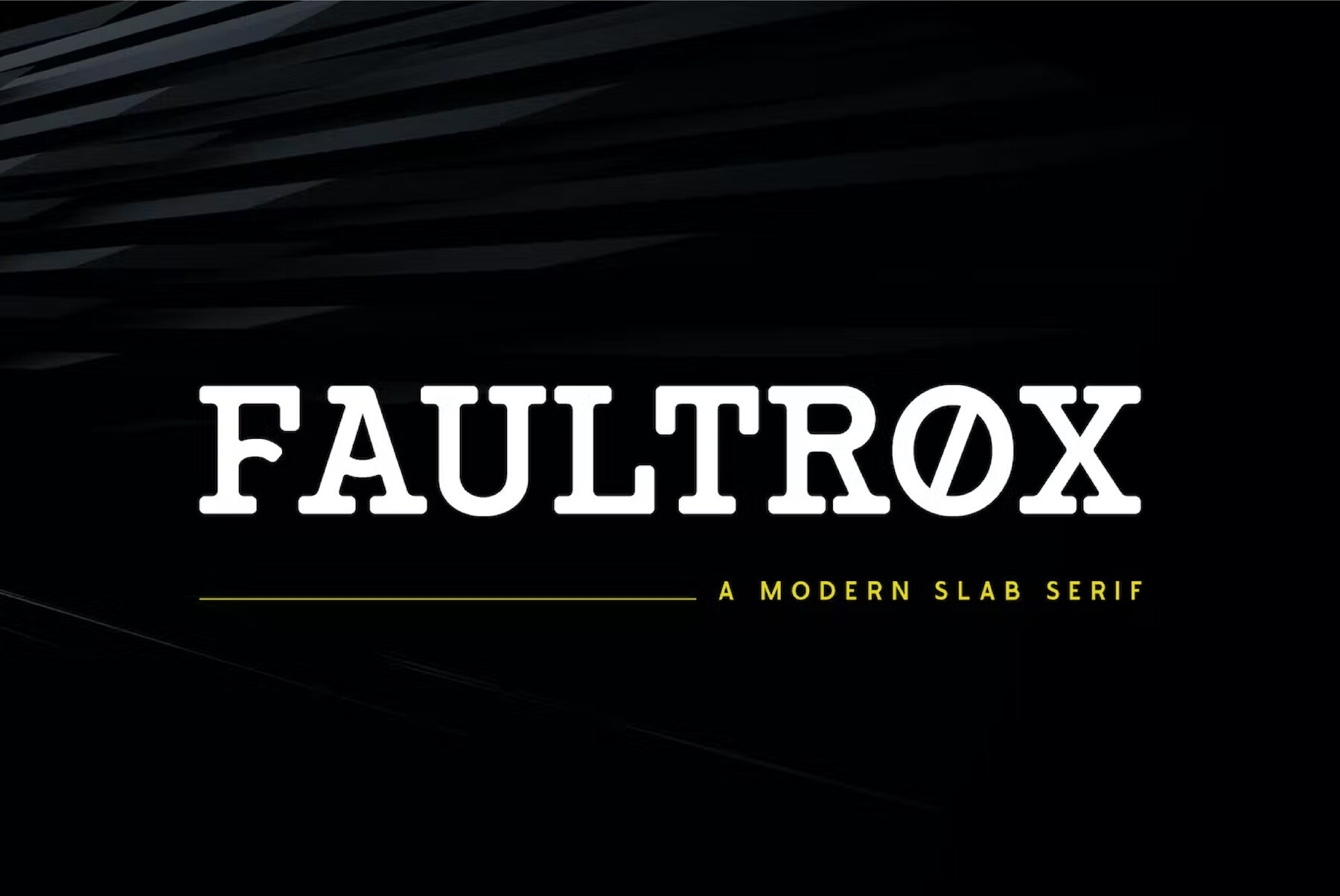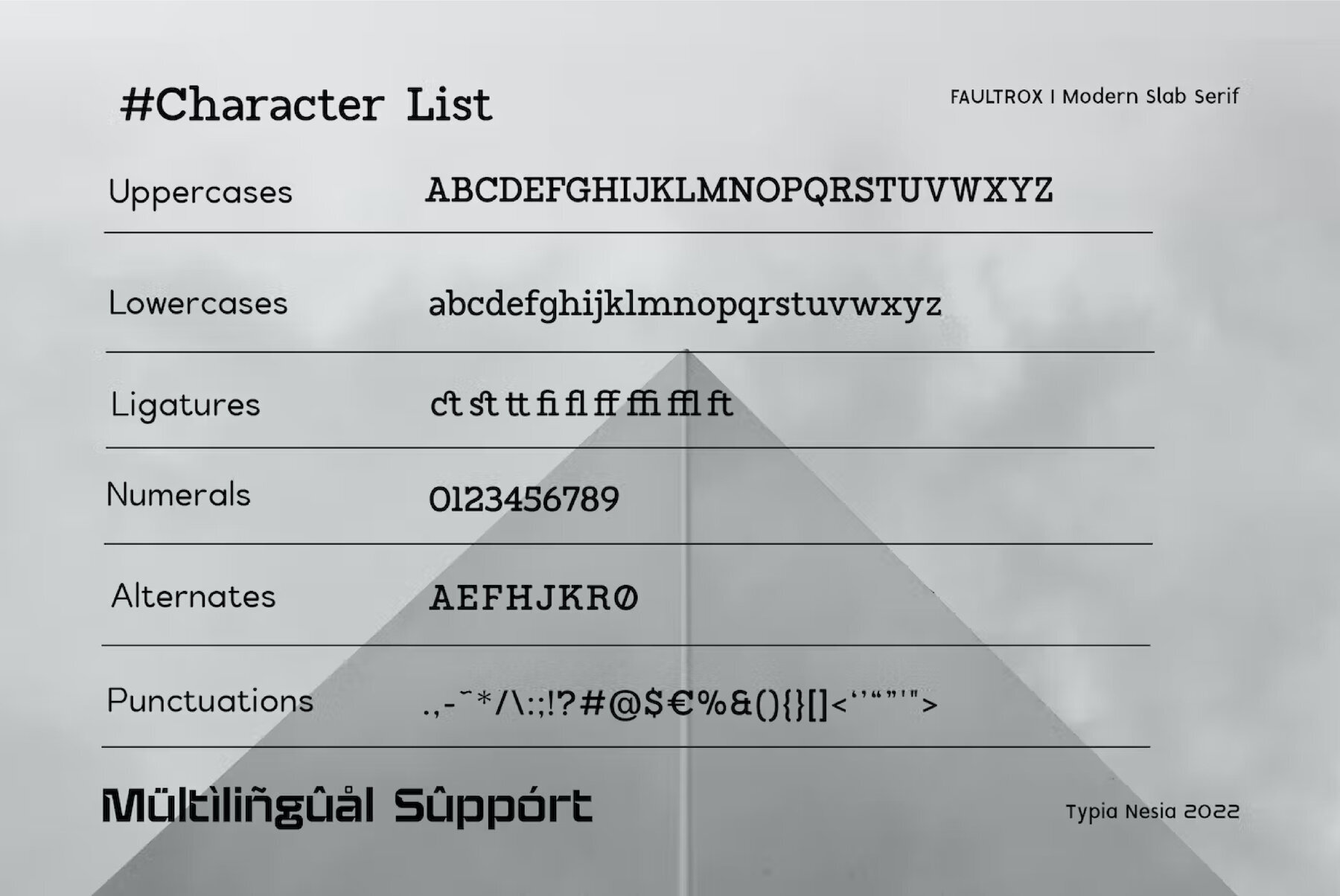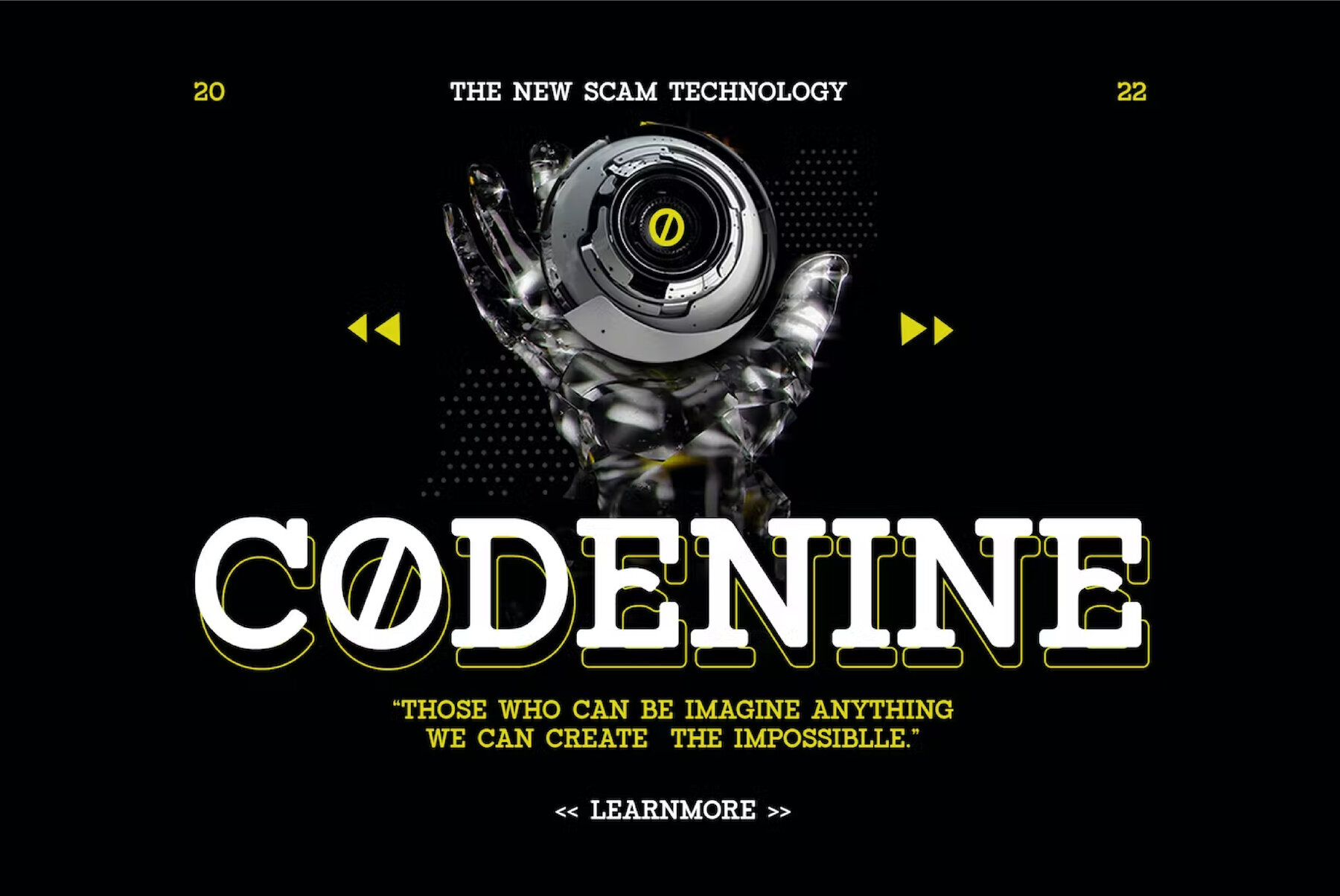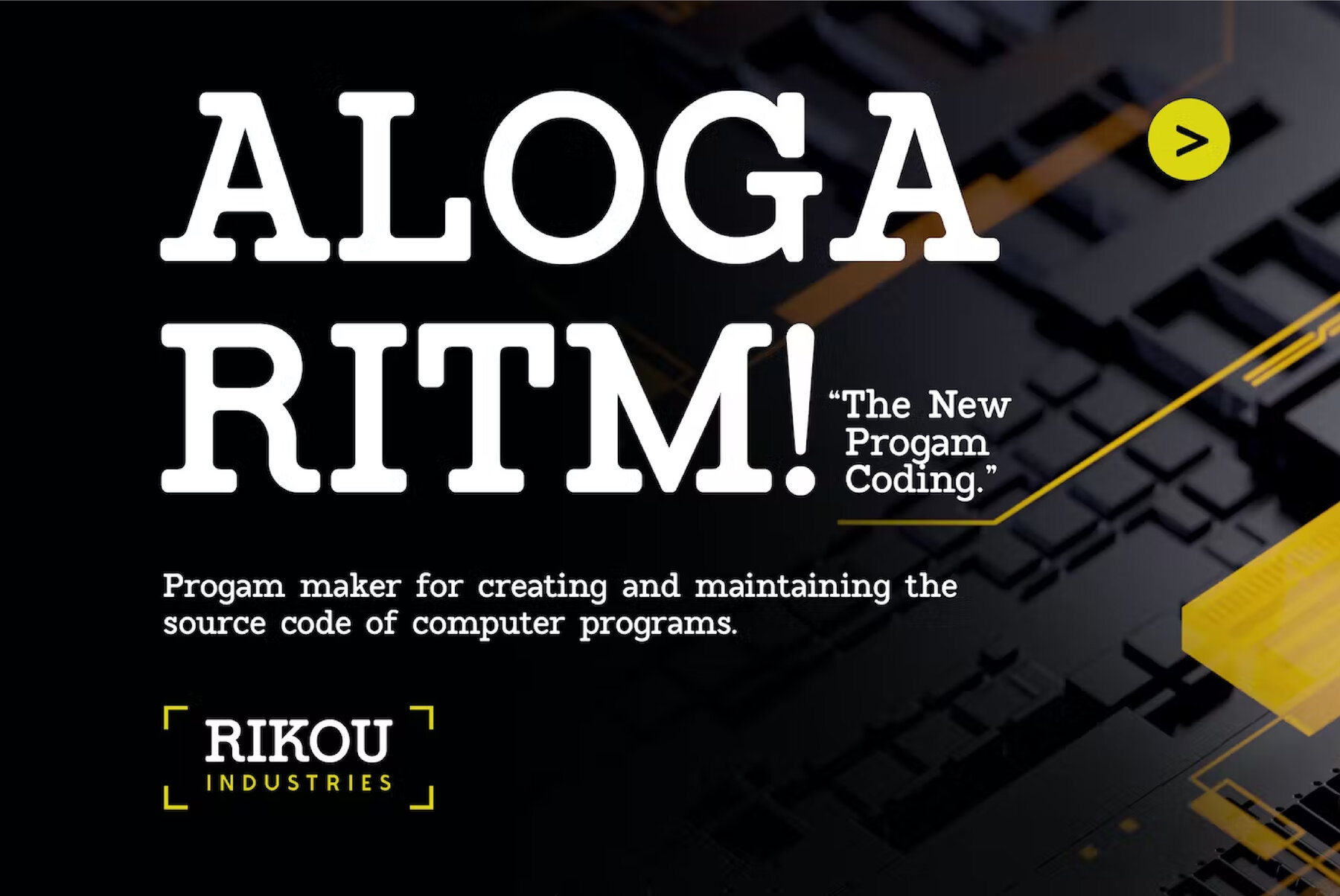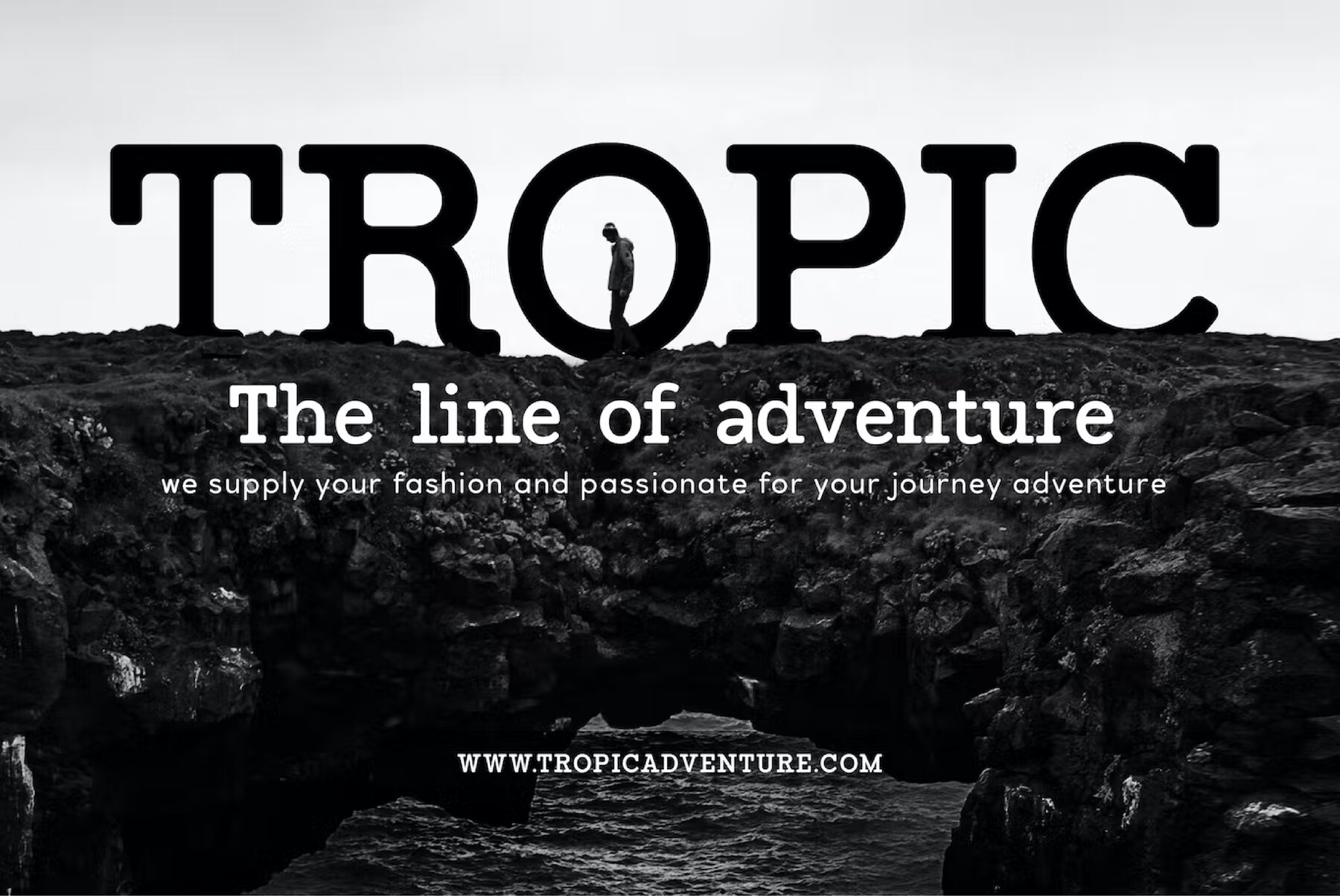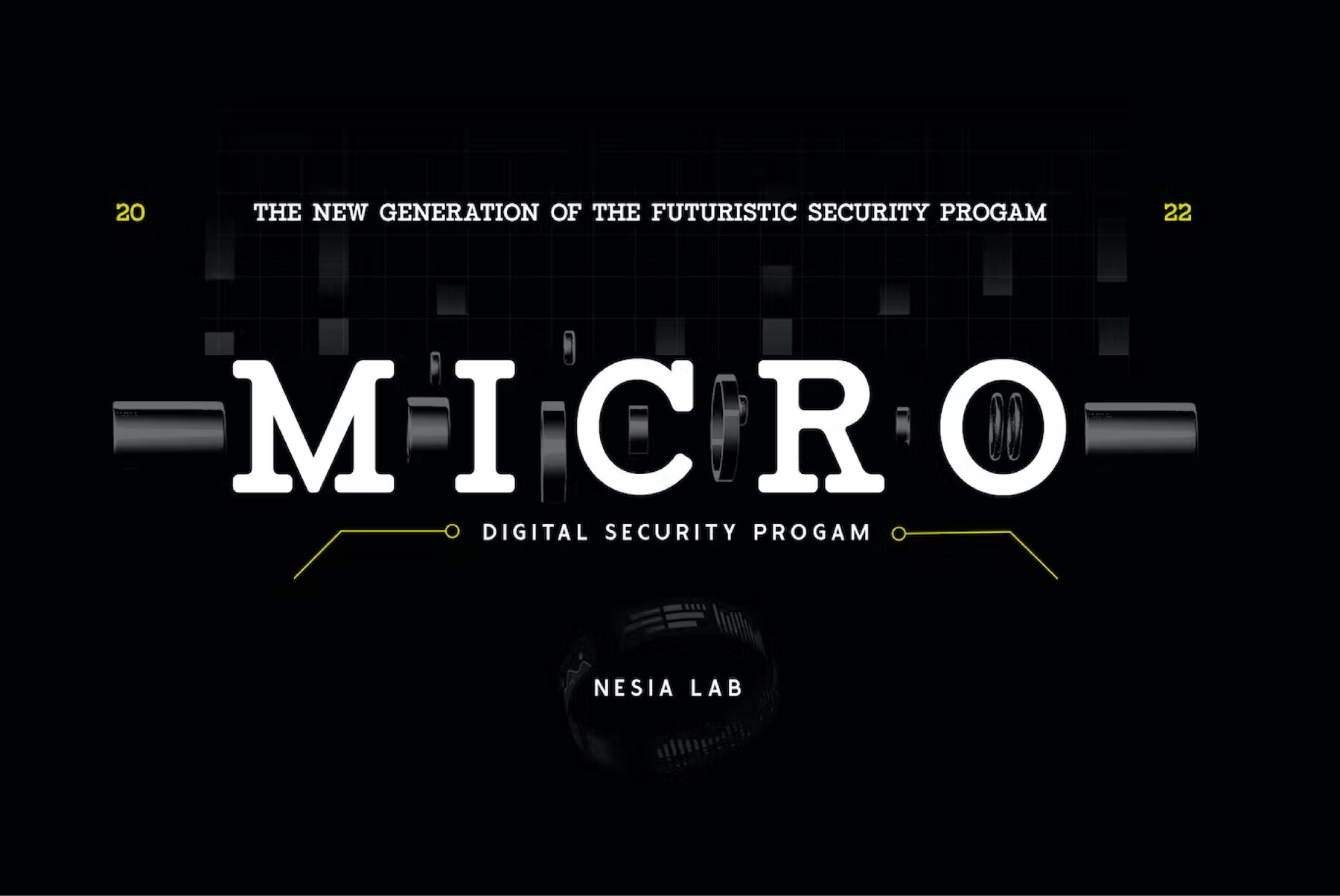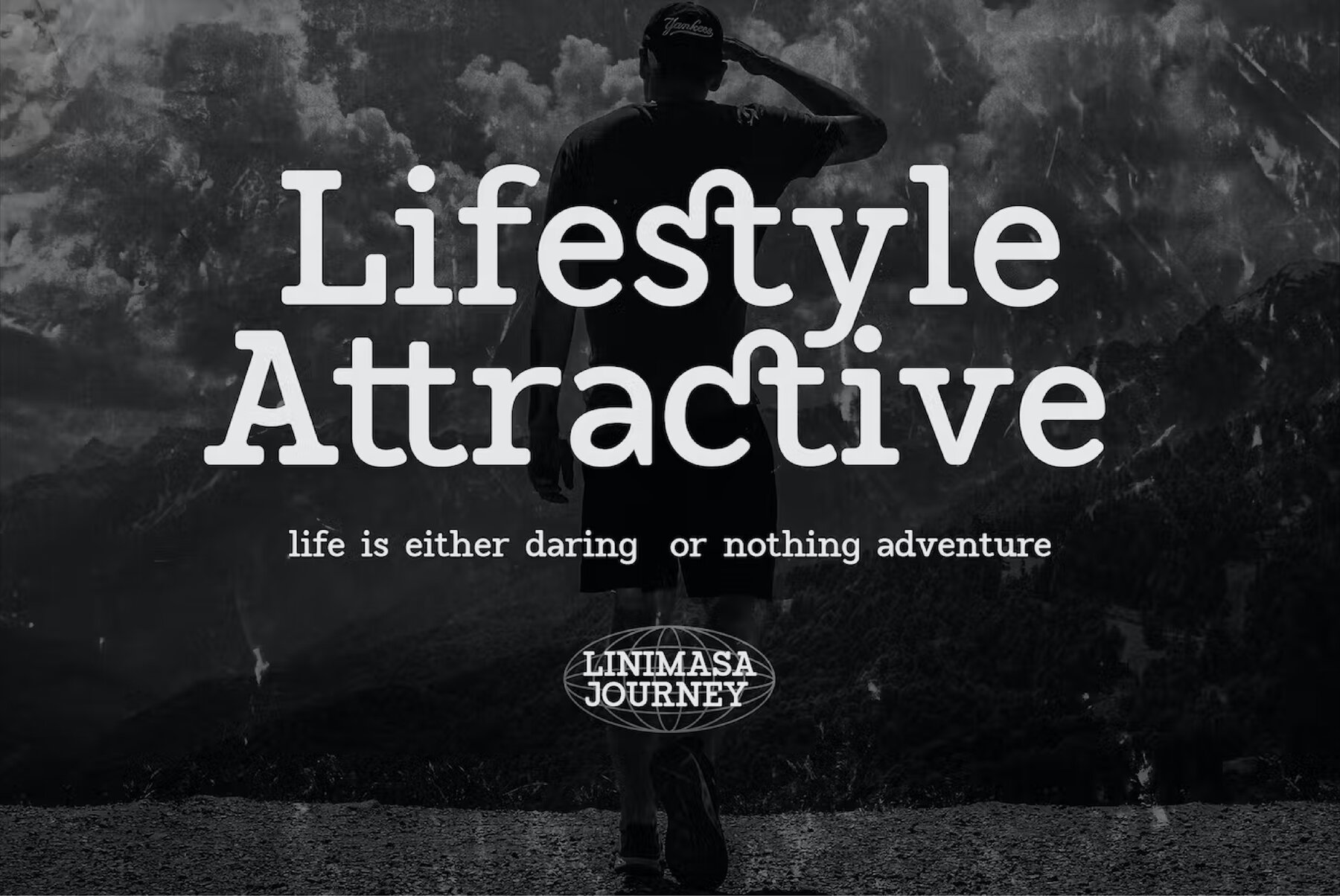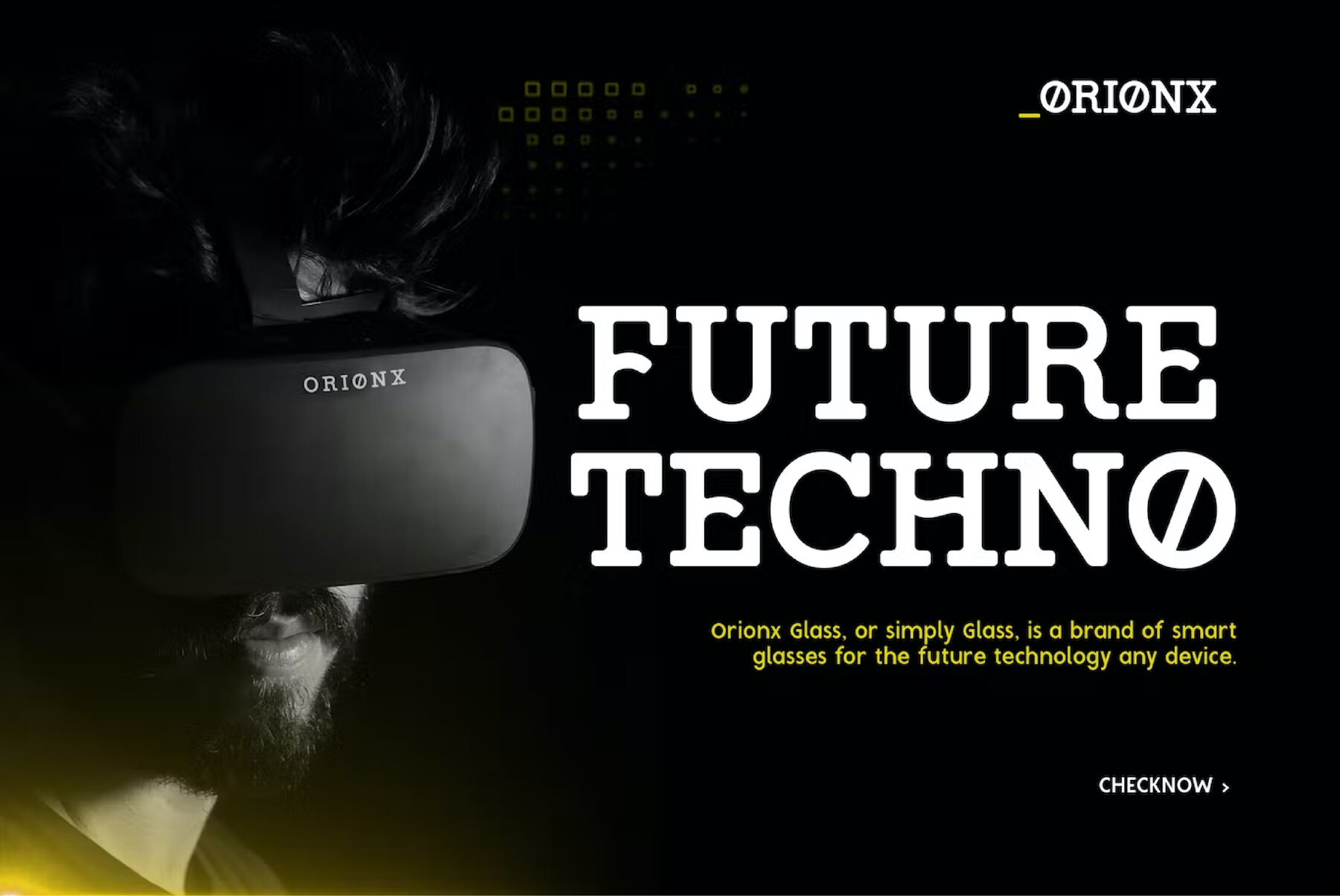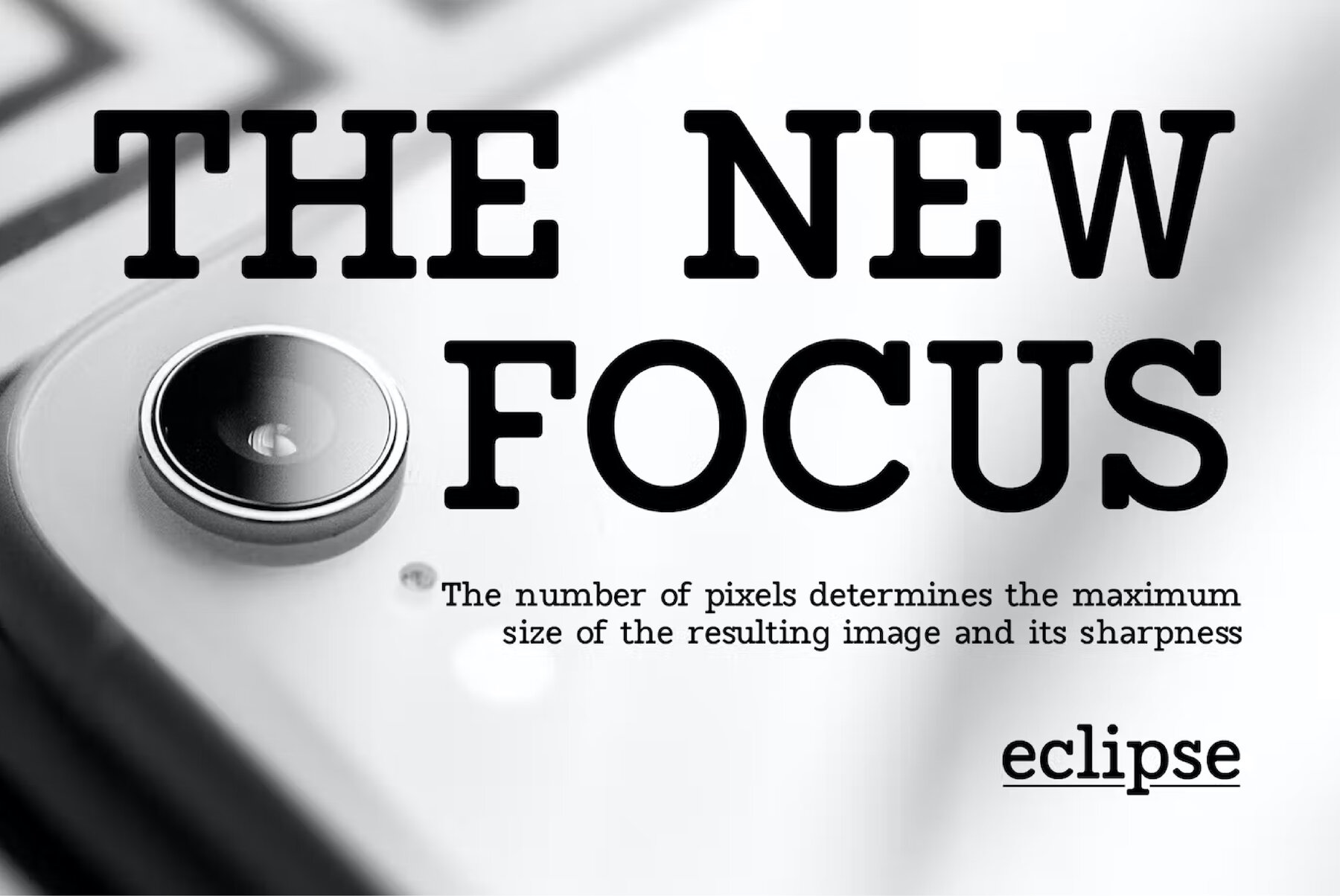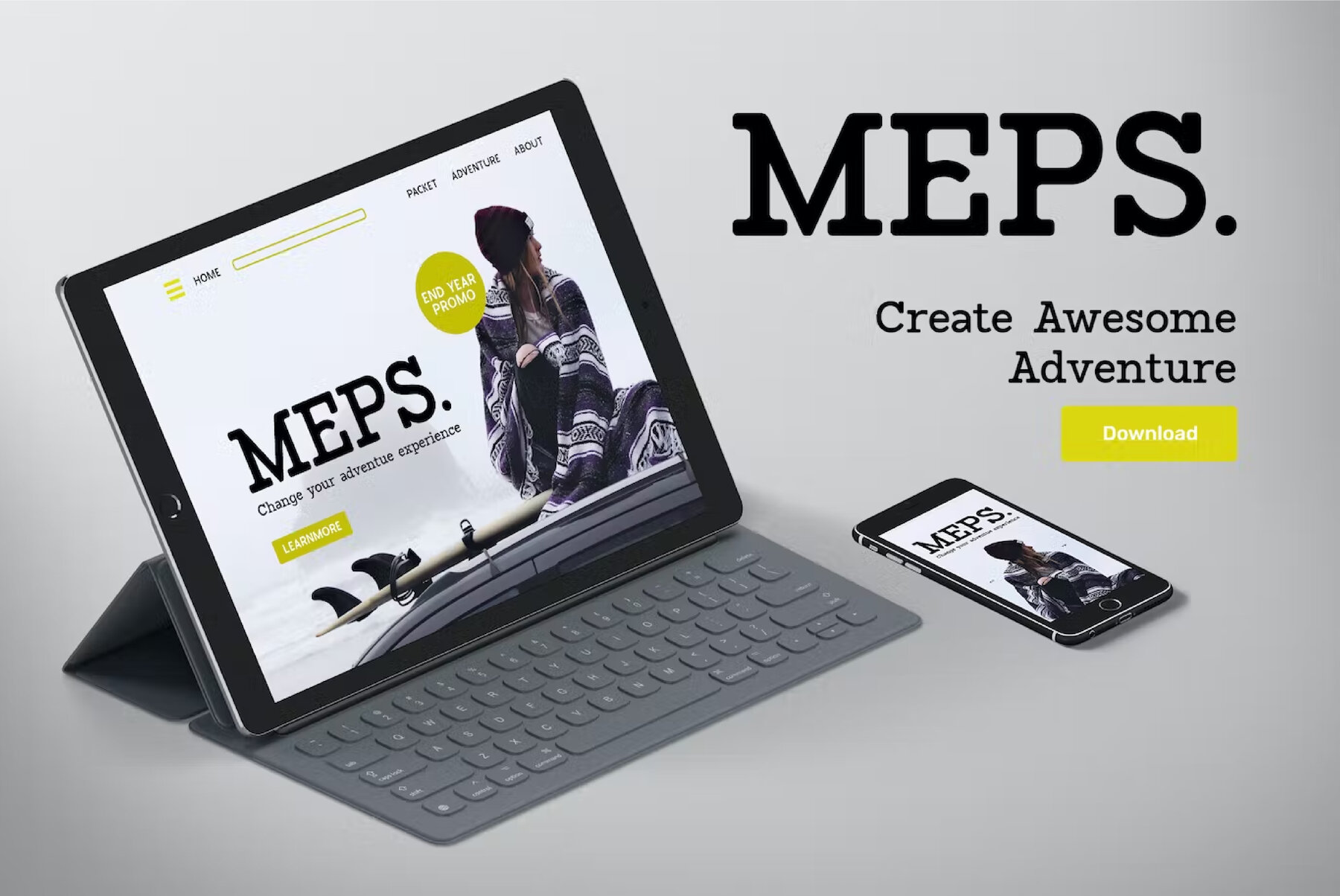
Faultrox Font
FAULTROX Regular
Faultrox, a modern slab serif font, embodies a fusion of vintage charm and contemporary elegance, making it an ideal choice for designers seeking a versatile typeface. Its robust structure is apt for various creative endeavors, whether you're crafting a classic logo, revamping editorial designs, or conceptualizing a striking book cover title. The font's adaptability extends to promotional materials, blog designs, and decorative applications, providing a reliable touch of sophistication.Faultrox: A Modern Slab Serif for Timeless Adventure
Features of Faultrox